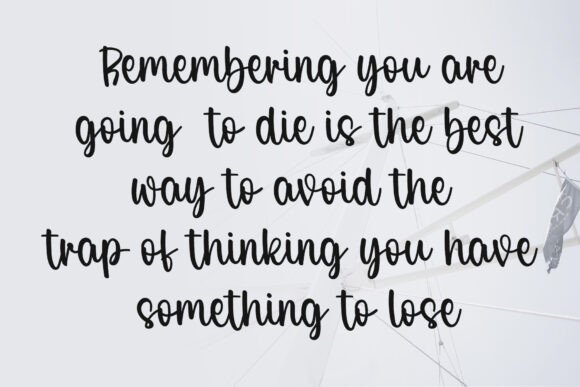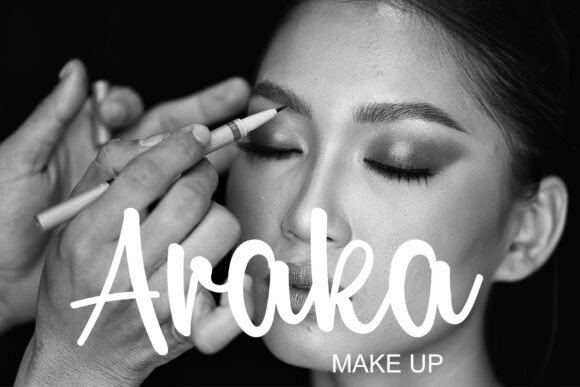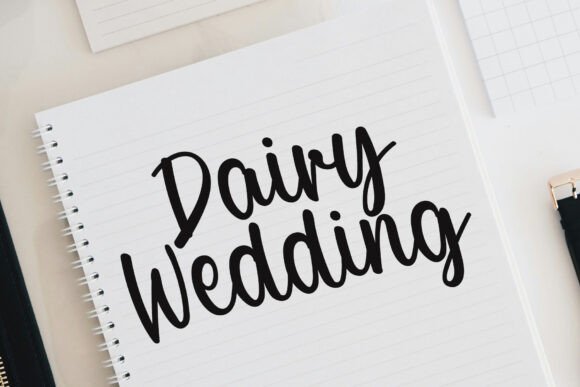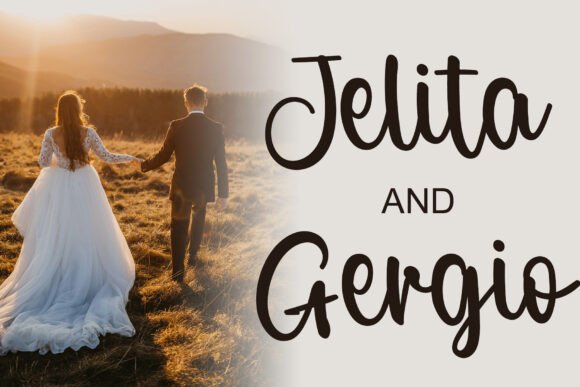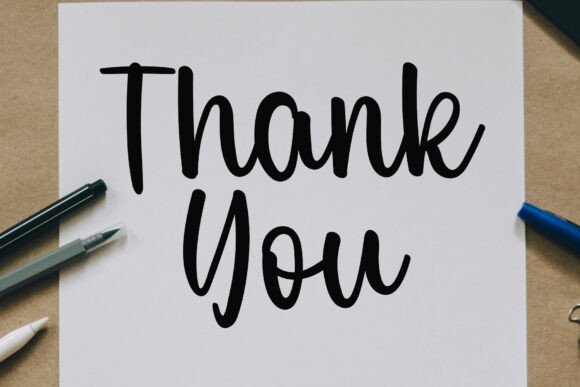
Introducing Buddy Font: The Elegant and Delicate Handwritten Typeface for Your Design Needs
Are you a designer or crafter looking for a beautiful and versatile font to elevate your designs? Look no further than Buddy Font, an elegant and delicate handwritten typeface that’s perfect for a wide range of applications. From logos and branding to social media posts, advertisements, business cards, and wedding invitations, Buddy Font is the ideal choice for anyone seeking a sophisticated and eye-catching font.
What Makes Buddy Font Special?
Buddy Font is a unique and stylish typeface that’s designed to add a touch of elegance and sophistication to your designs. Its delicate and handwritten style makes it perfect for creating beautiful and eye-catching designs that will leave a lasting impression on your audience. Whether you’re a professional designer or a crafty DIY enthusiast, Buddy Font is a versatile and reliable choice that will help you achieve your design goals.
Features and Benefits of Buddy Font
So, what makes Buddy Font stand out from the rest? Here are just a few of its key features and benefits:
- Elegant and delicate handwritten style: Buddy Font boasts a beautiful, cursive script that’s perfect for creating sophisticated and eye-catching designs.
- PUA encoded: This font is PUA (Private Use Area) encoded, which means you can access all of the glyphs and alternates with ease. This makes it easy to customize your designs and add a personal touch.
- Versatile and adaptable: Buddy Font is perfect for a wide range of design applications, from logos and branding to social media posts, advertisements, business cards, and wedding invitations.
Design Applications for Buddy Font
Buddy Font is a versatile typeface that can be used for a wide range of design applications, including:
- Logos and branding: Create a beautiful and memorable logo for your business or brand with Buddy Font.
- Social media posts: Add a touch of elegance and sophistication to your social media posts with Buddy Font.
- Advertisements: Create eye-catching and effective advertisements with Buddy Font.
- Business cards: Design professional and stylish business cards with Buddy Font.
- Wedding invitations: Create beautiful and elegant wedding invitations with Buddy Font.
- Product design: Use Buddy Font to add a touch of sophistication and style to your product designs.
Why Choose Buddy Font?
So, why should you choose Buddy Font for your design needs? Here are just a few reasons:
- Unique and stylish: Buddy Font is a unique and stylish typeface that’s sure to make your designs stand out.
- High-quality design: Buddy Font is designed to the highest standards, ensuring a crisp and clear appearance in all your designs.